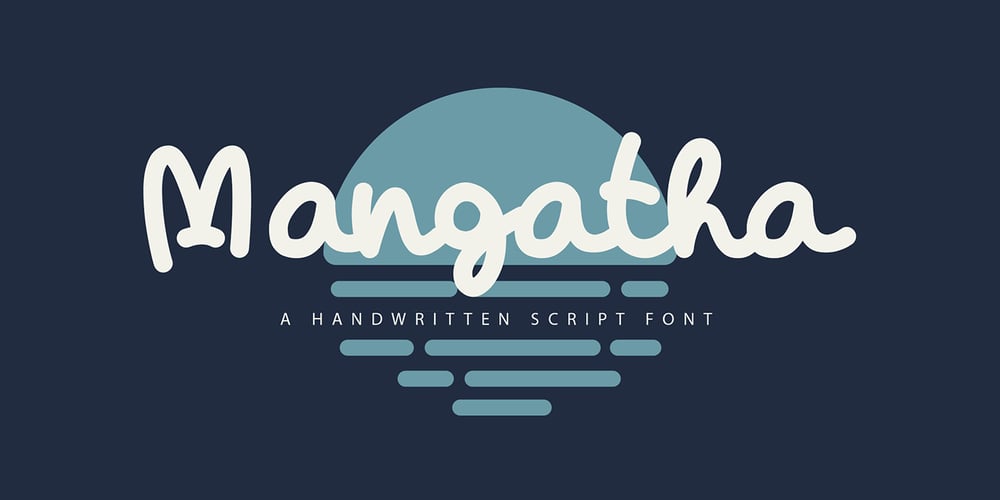
Mangatha Font Family was designed by Yahdi Kumala and published by Krakenbox Studio. Mangatha contains 1 styles and family package options. Mangatha is handwritten script font. It has casual, classy, fun, and cute. It’s a great font for fashion, apparel projects, signature, album cover, logo, branding, magazine, social media, & advertisements, but also works great for other projects.Highlight : Fonts are provided in OTF formats. Character Set Numerals and Punctuation (OpenType Standard) Accents (Multilingual characters) Ligature Set PUA Encode Enjoy, Thank you Krakenbox